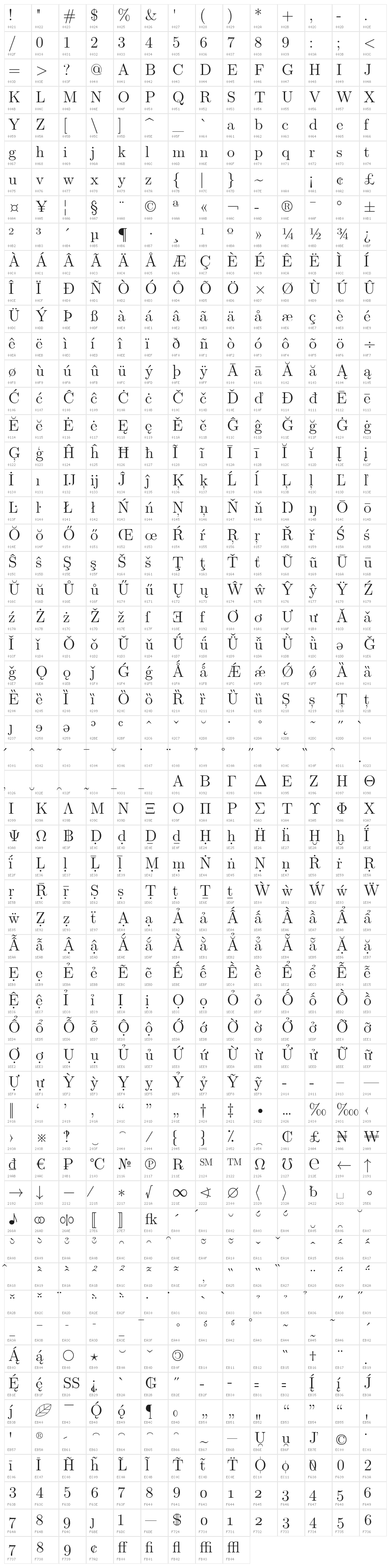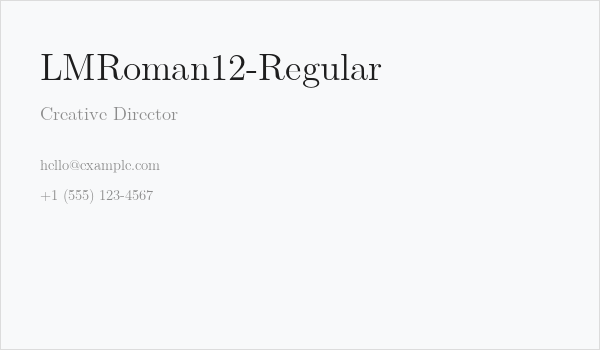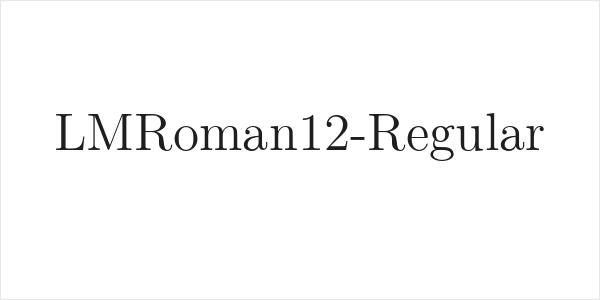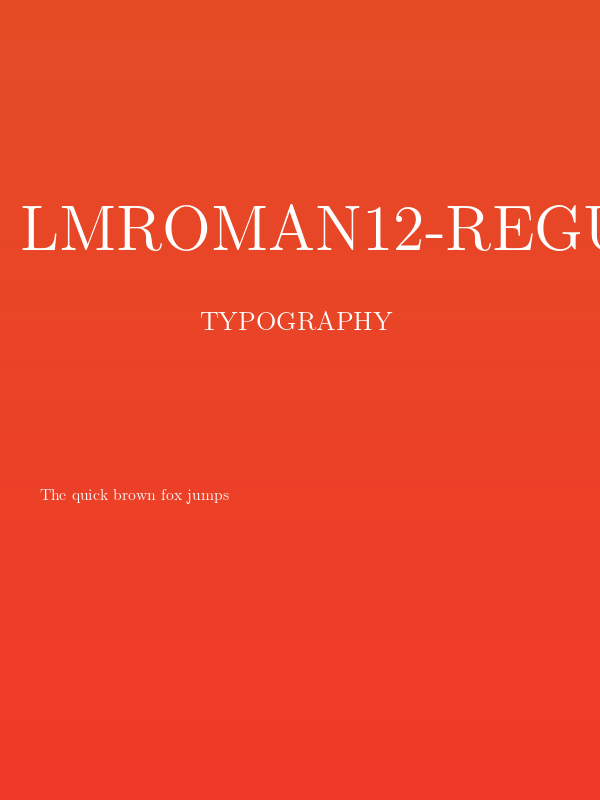
LMRoman12-Regular Font
LMRoman12-Regular Description
This font exhibits a classic serif style with elegant and refined strokes. The characters have a traditional appearance, featuring distinct serifs that enhance readability and lend a sophisticated touch. The uppercase letters are well-proportioned, while the lowercase letters maintain a consistent x-height, contributing to a harmonious text flow. The numerals are clear and balanced, making them suitable for both text and numerical data. The special characters are designed with precision, ensuring they integrate seamlessly with the rest of the typeface.
| Overall Style | Classic |
| Use Case | Body text, Headlines, Formal documents |
| Proposed Projects | Ideal for projects requiring a traditional and formal look, such as book typesetting, academic papers, and formal invitations. |